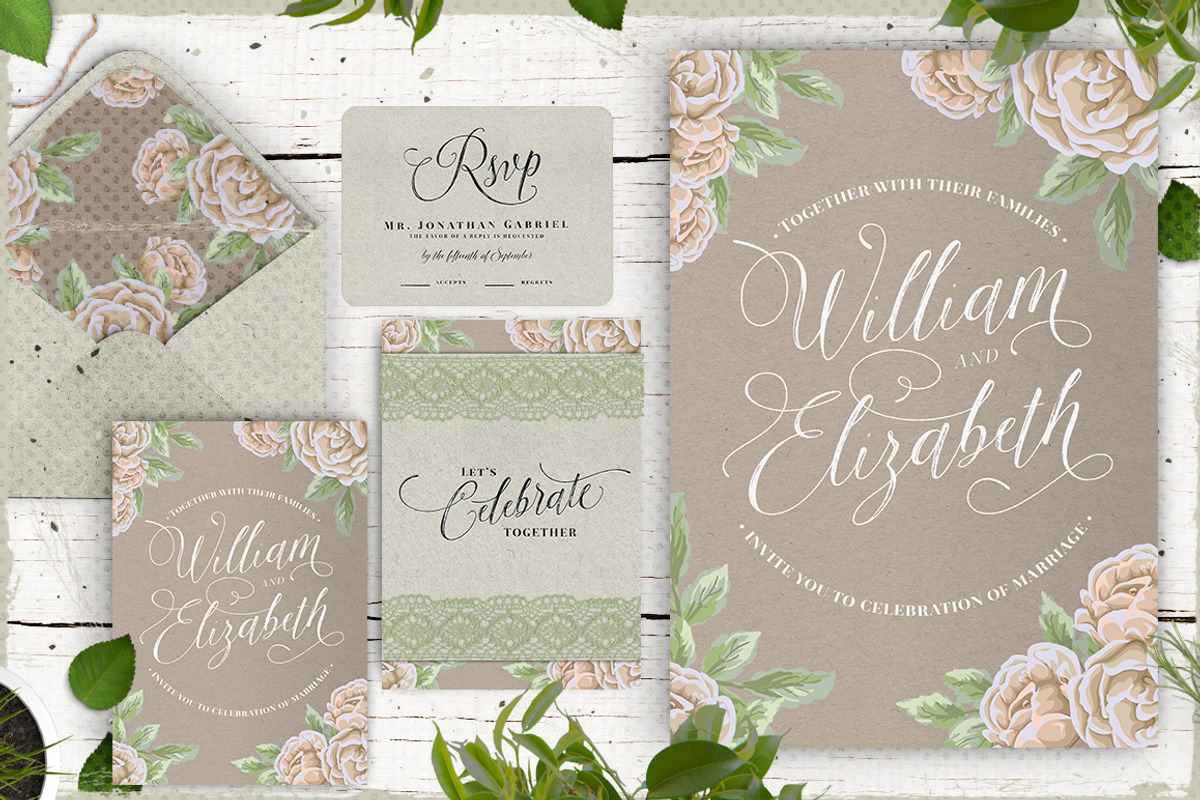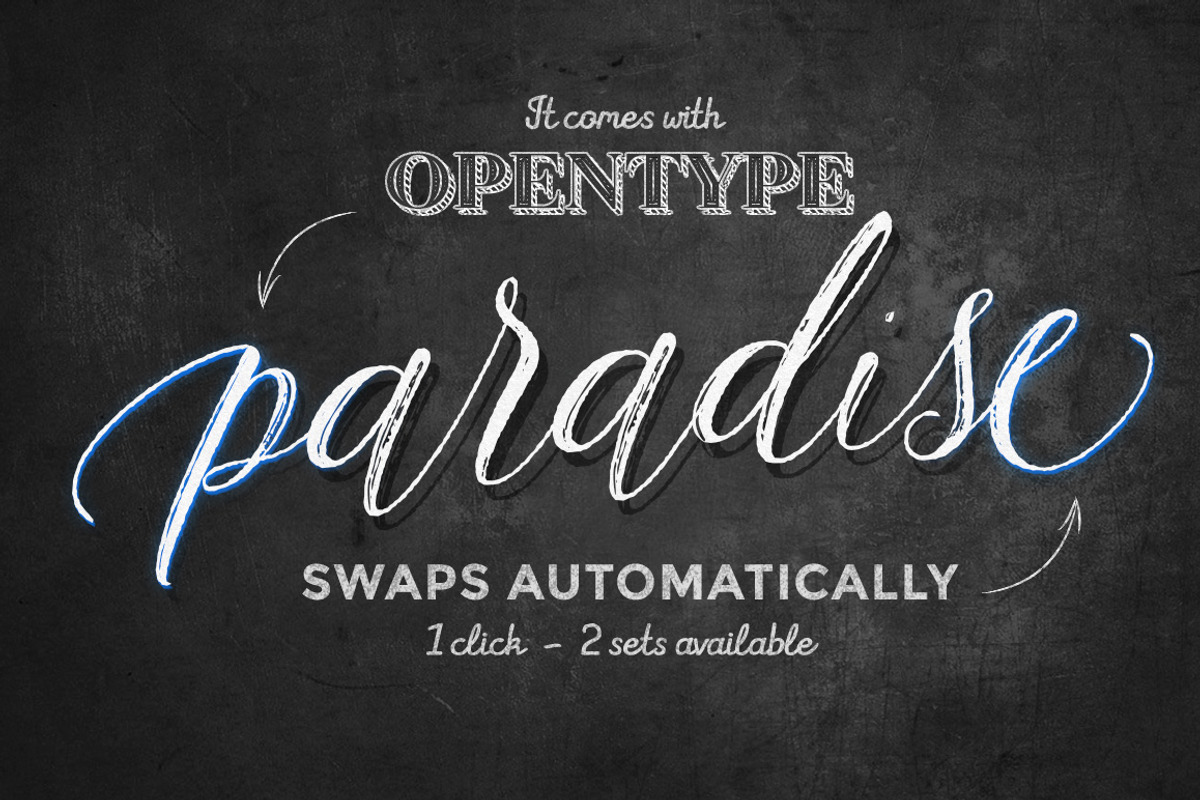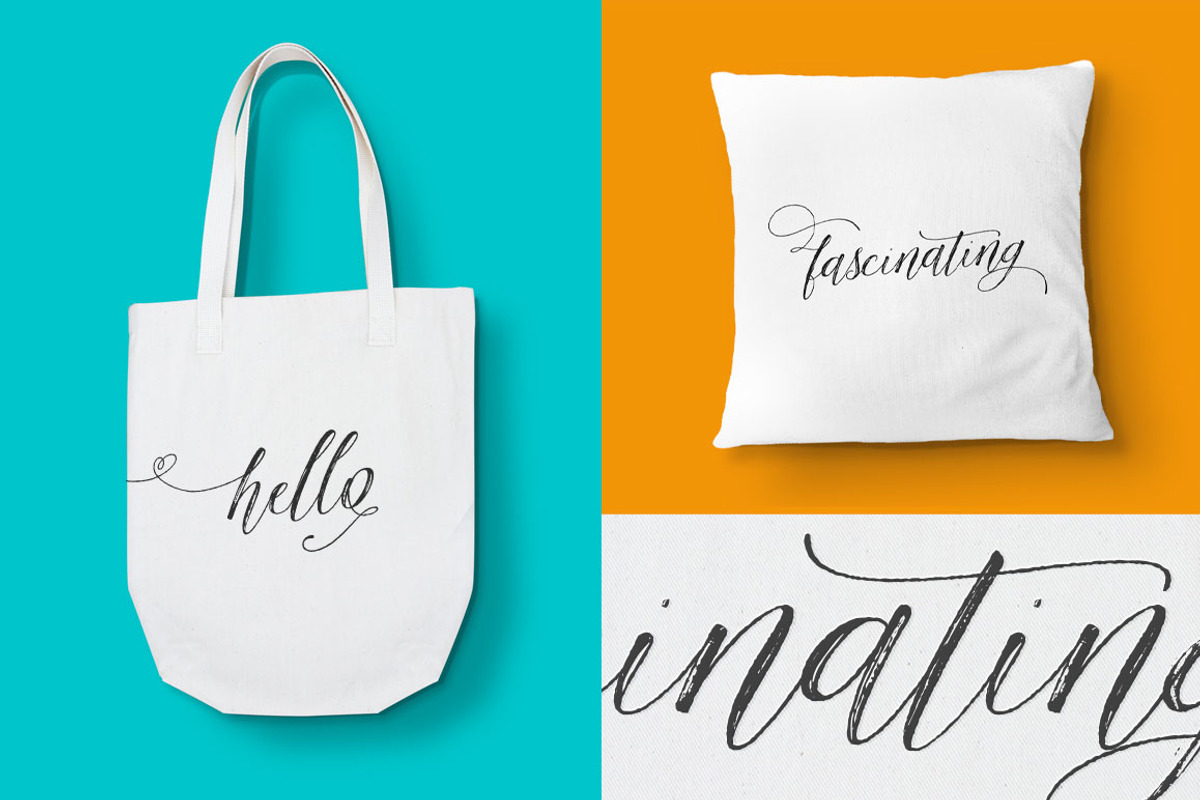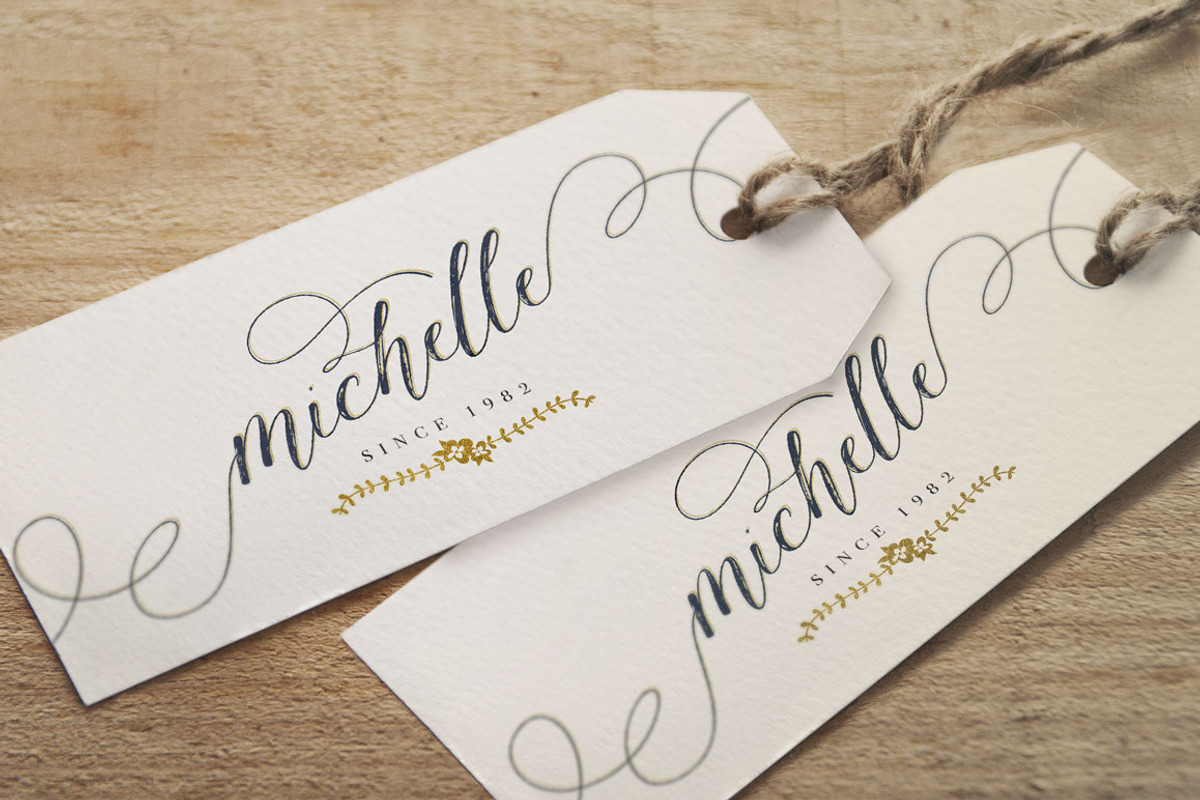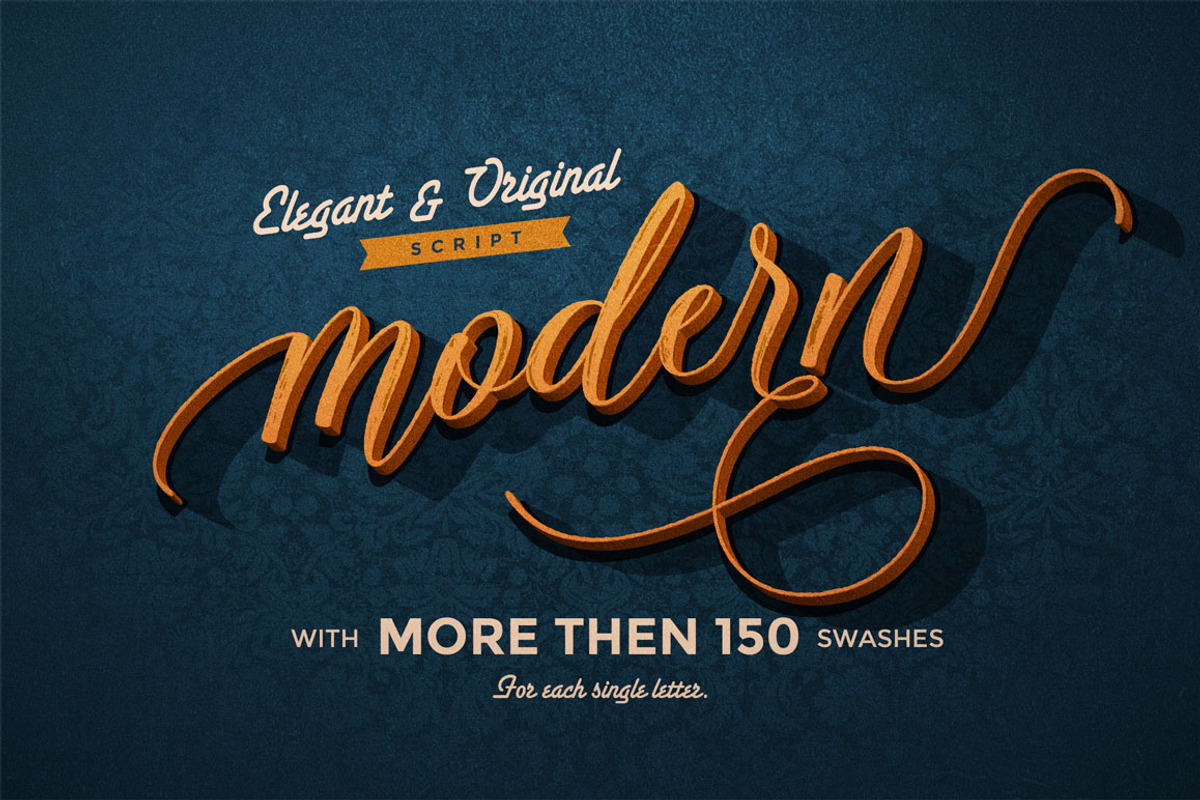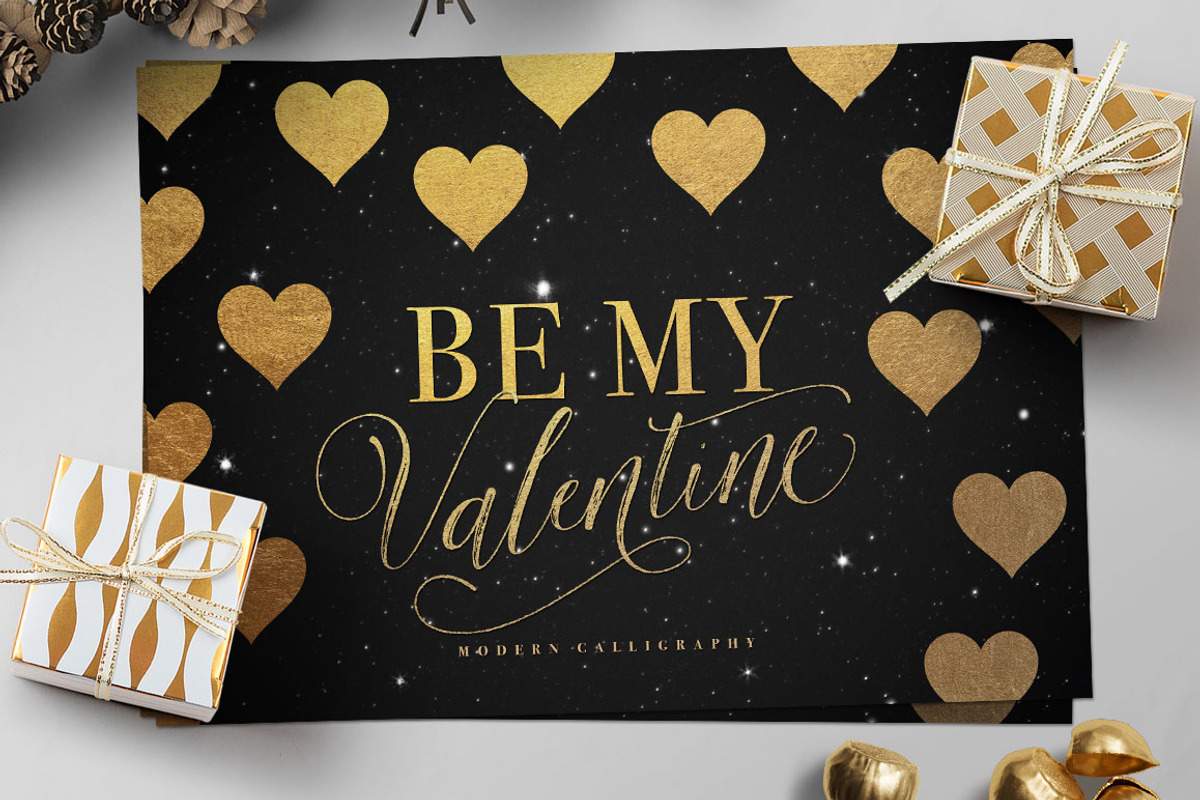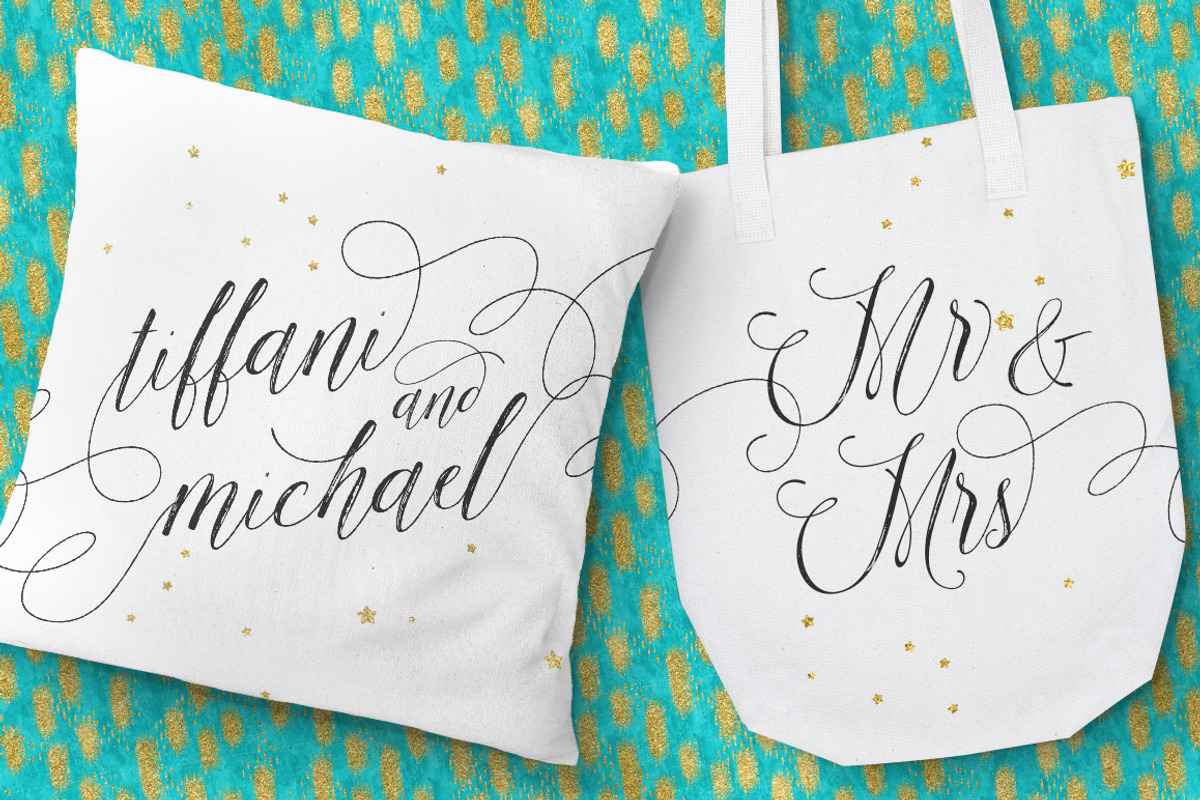
Amelia Script - Draft version
Amelia Script is revolutionary new modern calligraphy typeface with more then 150 end-swashes. It supports opentype features. It is smart and it is working in Photoshop without necessary to open glyph panel! You are welcome to use it for various purposes: logo, wedding invitation, headings, signatures, t-shirt, letterhead, signage, labels, posters etc.
Amelia Script supports:
- Contextual alternates
- Discretionary Ligatures
- Stylistic alternate
- PUA (private use areas)
I prepared carefully 1465 glyphs, includes multilingual symbols (scroll 2nd screen)
Be sure to scroll 150+ swashes:
This handwritten font is perfect for:
- logos
- wedding invitations
- prints
- quotes
- stationary
- decoration